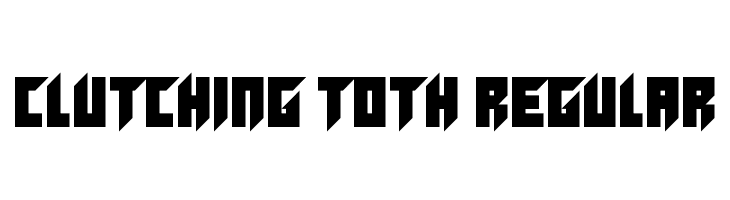
( Fonts by Nate Piekos - www.blambot.com )
A bold, angular font with a Gothic influence, ideal for dramatic and eye-catching designs.
( Fonts by Jacob Fisher - www.pizzadude.dk )
A bold, playful font with exaggerated, irregular shapes and dynamic energy.
( Fonts by Patrick Broderick )
A bold, angular serif font with a vintage yet modern twist.
( Fonts by Marty Bee - www.martybee.com )
A bold, playful font with exaggerated curves and a whimsical style.
( Fonts by Levi Halmos )
A bold, vintage-style font with thick serifs and unique cut-out shapes.